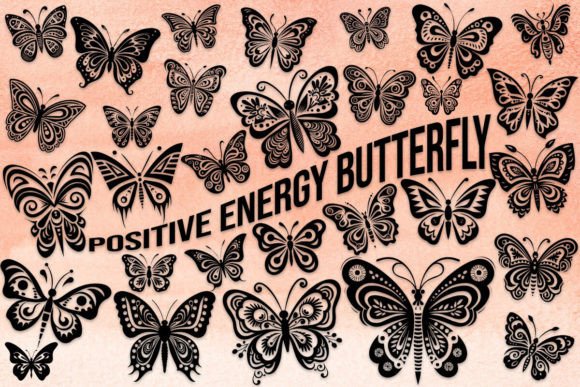
Introducing the Positive Energy Butterfly Font - a whimsical and enchanting collection of dingbats that will breathe life into your designs! Created by the talented MOMAT THIRTYONE, this font family is the perfect addition to your creative toolbox.
With 62 delightful symbols, including 26 uppercase and 26 lowercase letters, as well as 10 numbers from 0 to 9, the Positive Energy Butterfly Font offers endless possibilities for your projects. Each character exudes a sense of positivity, grace, and charm that will captivate your audience and leave a lasting impression.
Unlock the power of these decorative elements and watch as your designs come to life with a touch of magic. Whether you're working on a branding project, crafting invitations, or designing social media graphics, this font will elevate your creations to new heights.
But what sets the Positive Energy Butterfly Font apart from the rest? It's not just a font, it's an experience. Each symbol tells a story, evoking emotions of joy, hope, and serenity. With every stroke, you'll infuse your designs with a sense of whimsy and wonder that will make them stand out from the crowd.
Embrace the versatility of this font and let your imagination run wild. From playful children's books to elegant wedding invitations, the Positive Energy Butterfly Font adapts effortlessly to any project, ensuring that your message is delivered with style and impact.
Why settle for ordinary when you can add a touch of magic to your designs? Download the Positive Energy Butterfly Font today and watch as your creativity soars. Let these enchanting symbols breathe life into your projects and spread positivity to all who lay eyes on them.
Unleash your inner artist and let the Positive Energy Butterfly Font be your creative companion. Elevate your designs, inspire your audience, and leave a lasting impression with this captivating collection of symbols. Don't miss out on this opportunity to turn your visions into reality.
Transform your designs into a visual symphony of positivity and charm. Download the Positive Energy Butterfly Font now and let your creativity take flight!